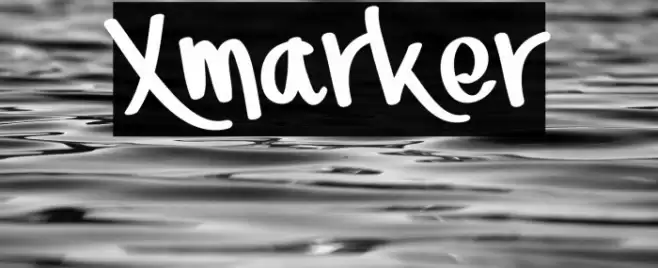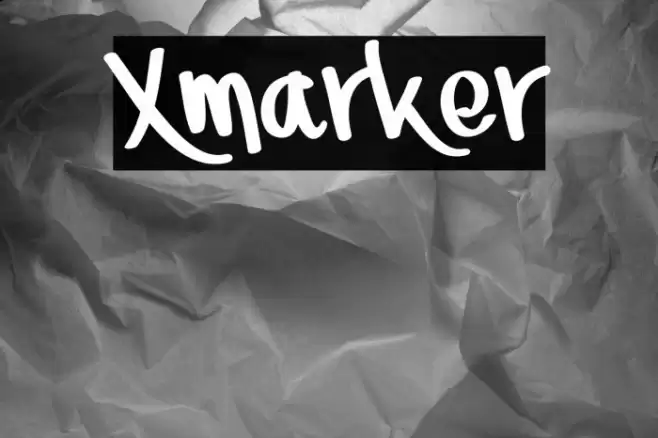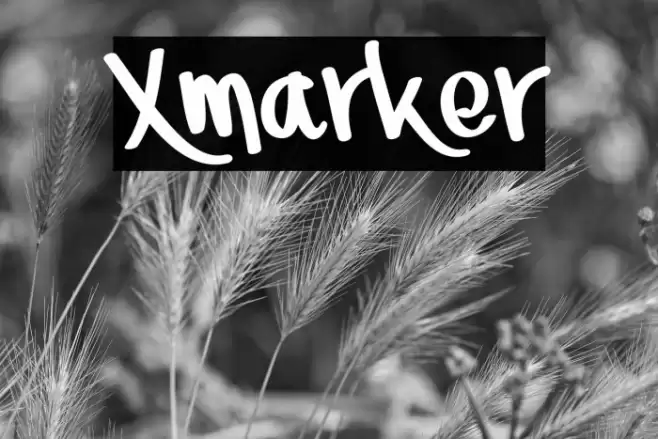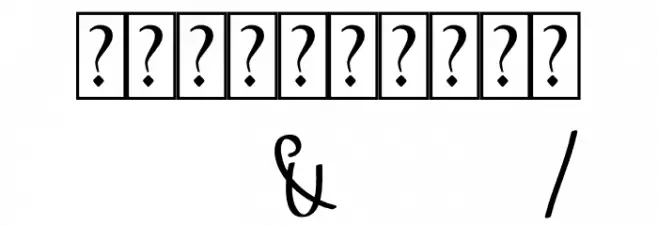
Xmarker Font
Xmarker Description
This font features a playful and energetic style with a handwritten appearance. The letters are bold and rounded, giving them a friendly and approachable look. The uppercase and lowercase letters maintain a consistent flow, with some characters having unique, whimsical twists. The font's strokes are thick and uniform, providing a strong presence on the page. It includes a limited set of special characters, enhancing its versatility for creative projects.
A bold, playful handwritten font with a friendly and energetic style from Uncategorized fonts.
- Proposed Projects: Ideal for children's books, playful branding, greeting cards, and creative posters.
- Overall Style: Playful
- Use Case: Headlines, Logos, Creative projects